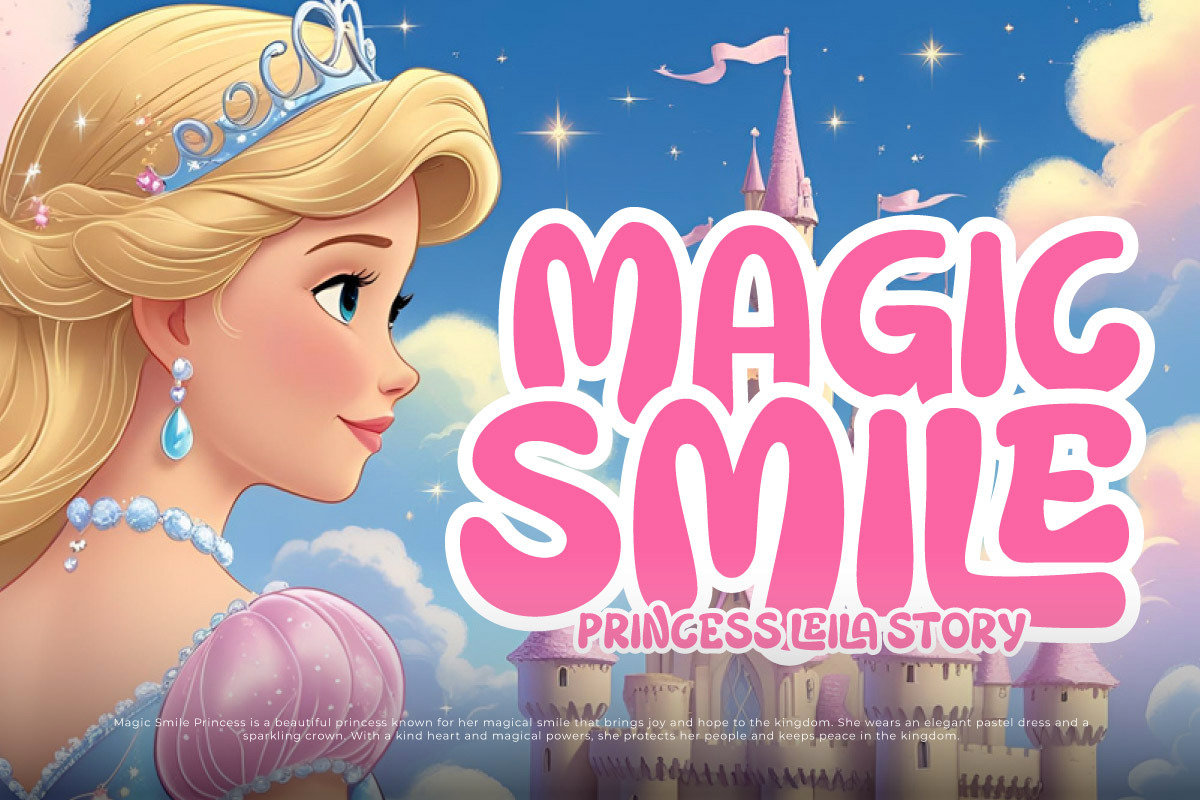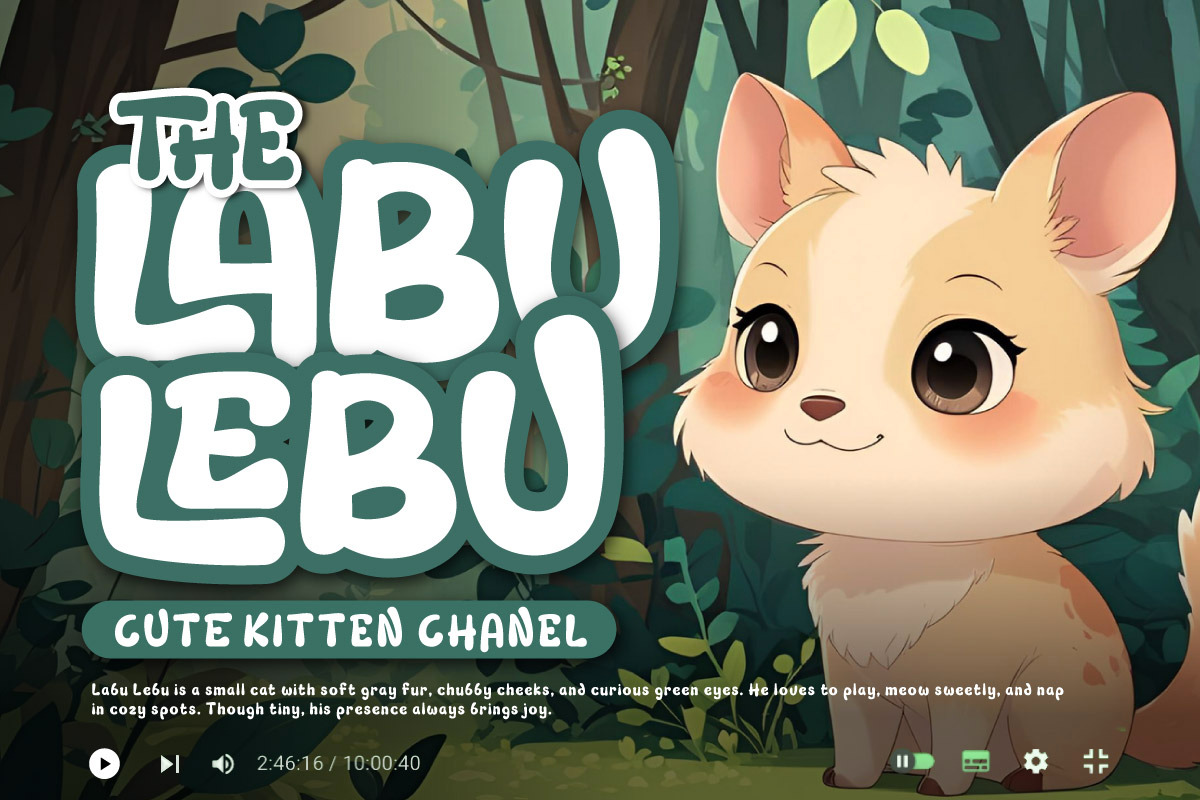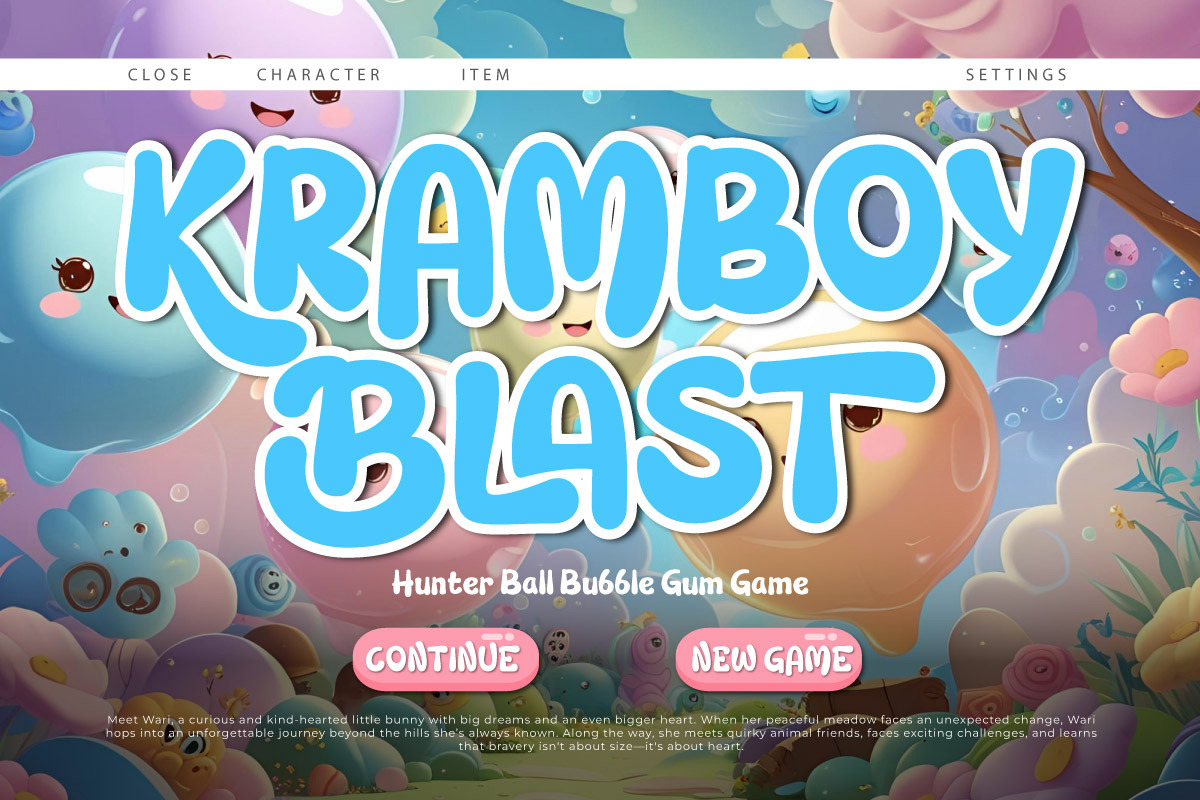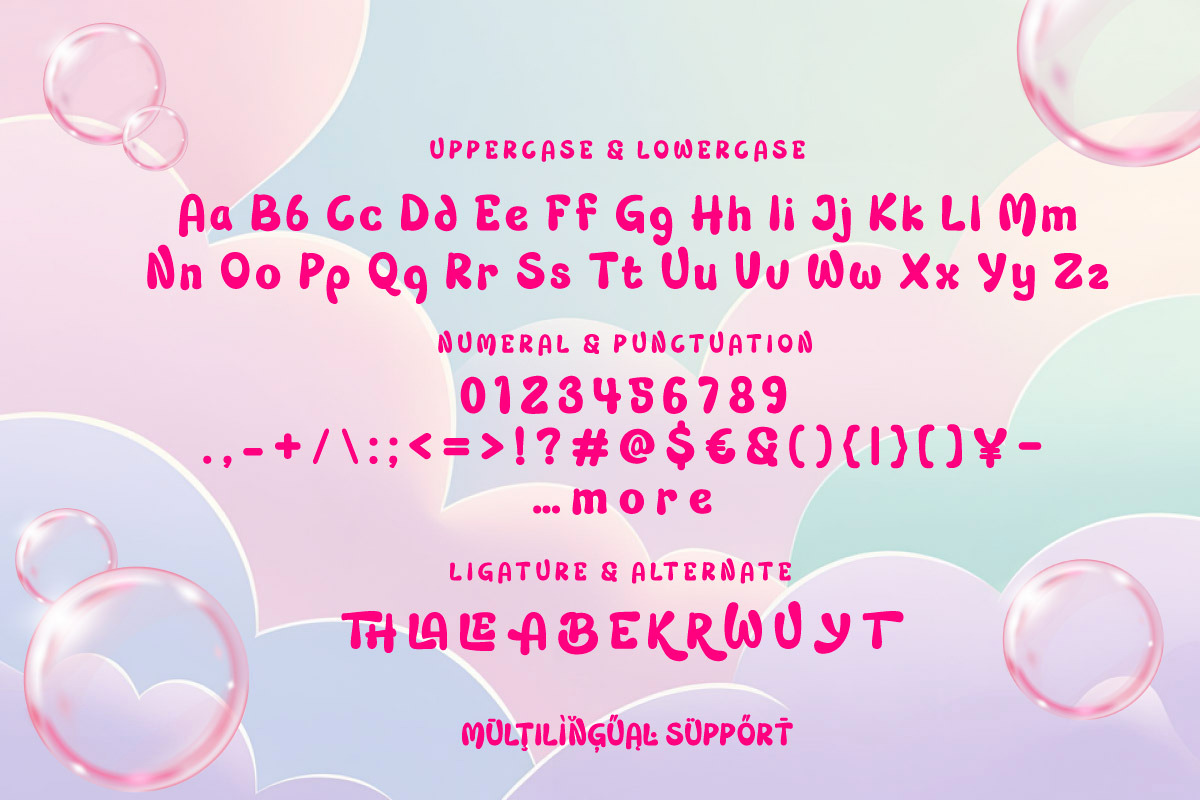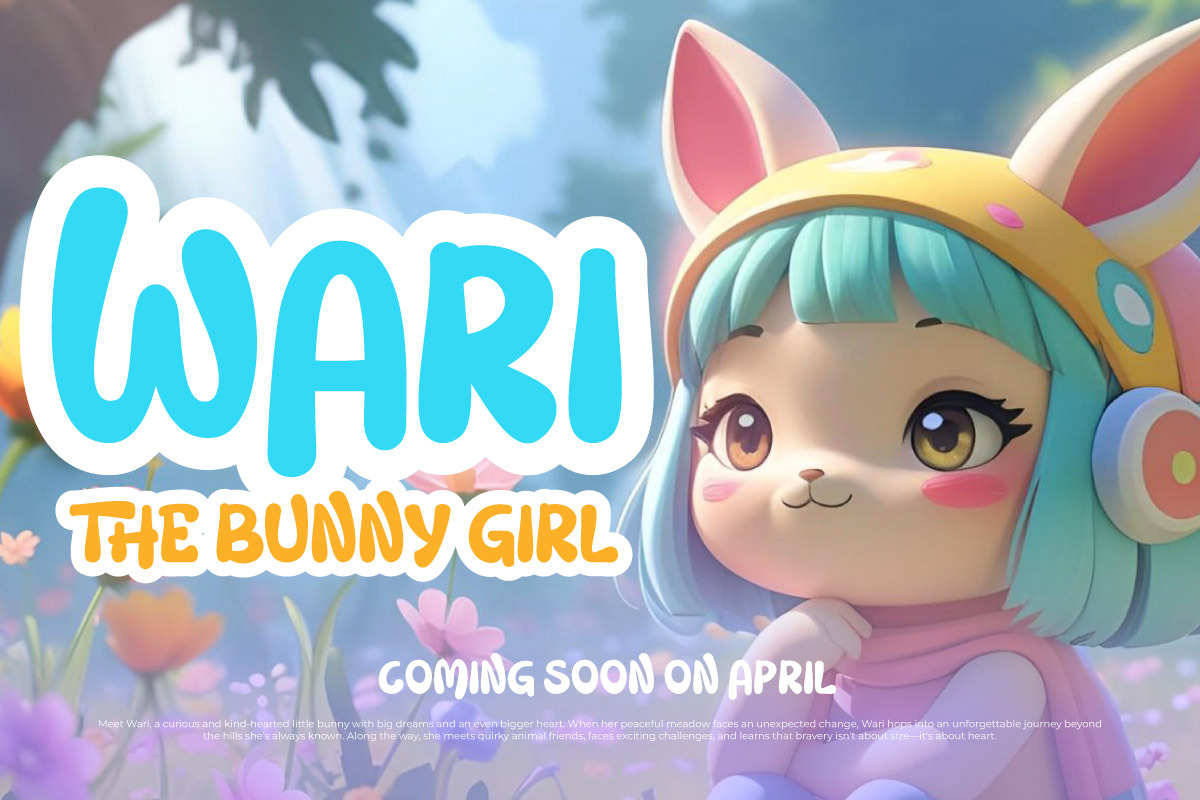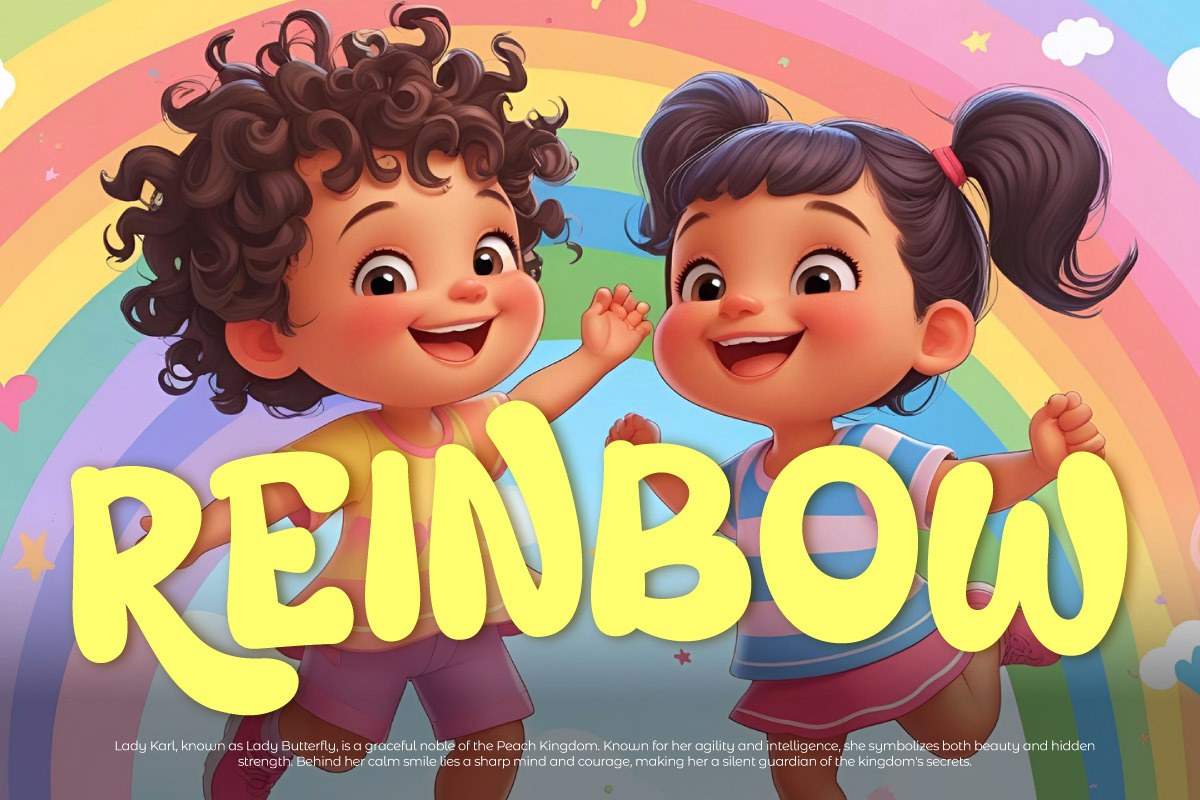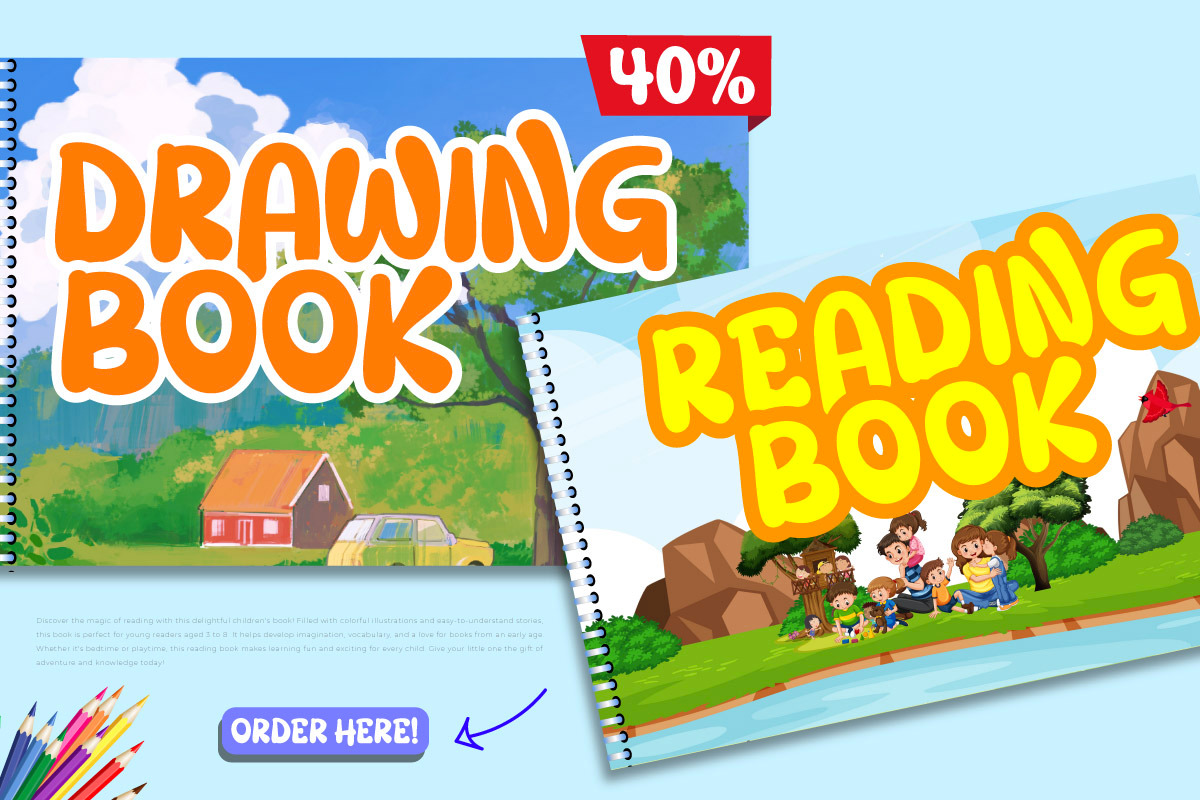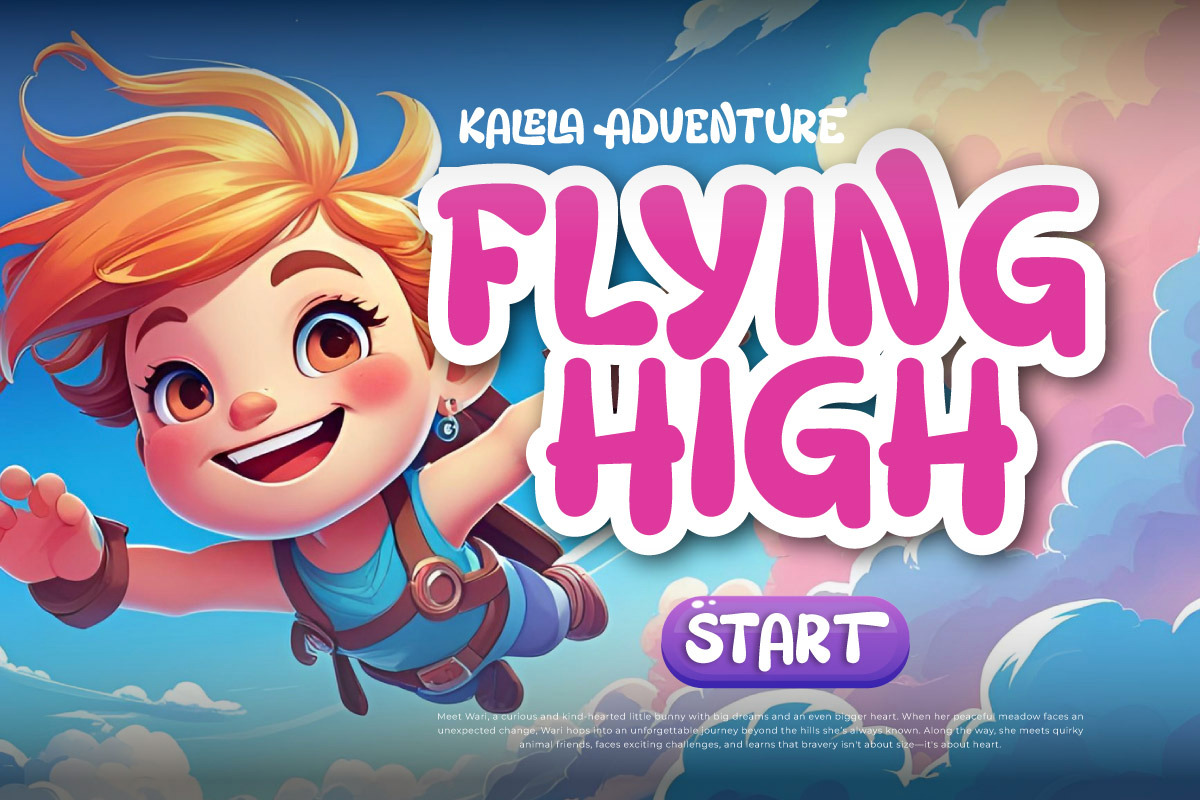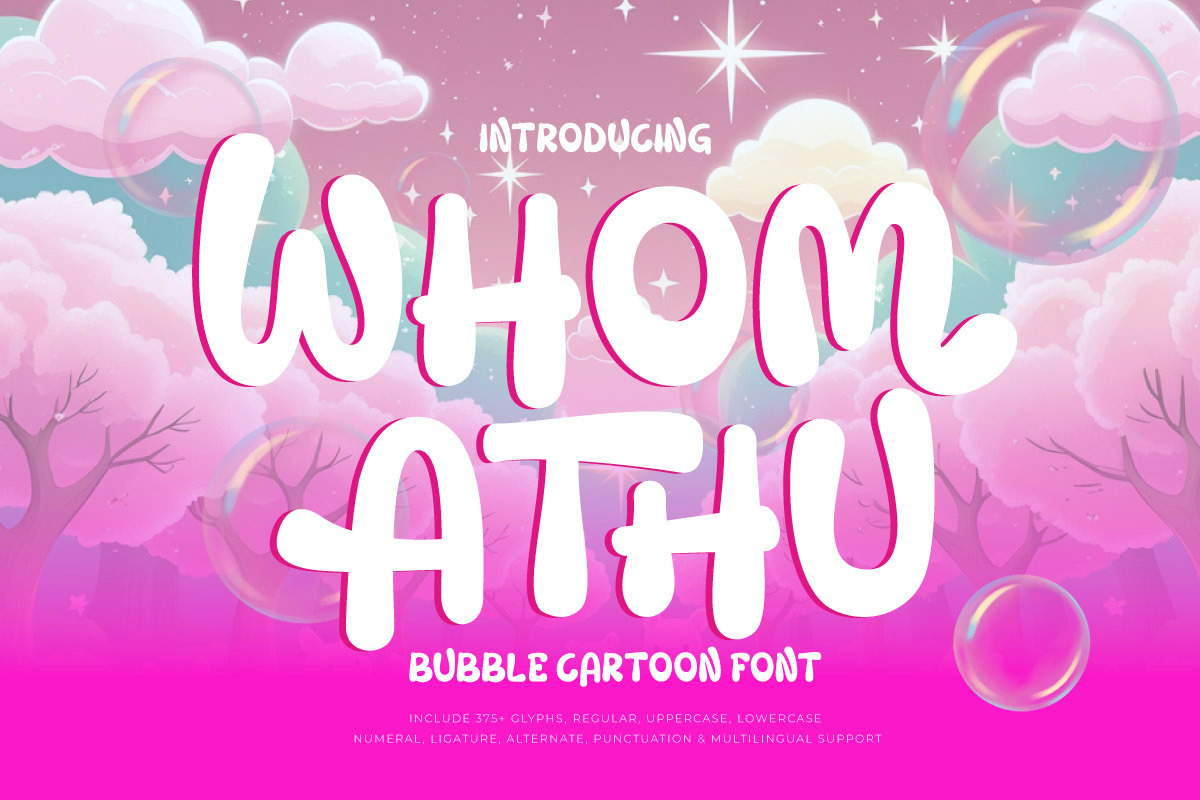
Whom Athu - Bubble Cartoon Font
Step into a world of fun and imagination with Whom Athu, a bubbly cartoon display font that radiates joy and friendliness. Designed with soft, rounded edges and a playful bubble style, Whom Athu brings a cheerful, approachable vibe to every project. It’s perfect for children’s storybooks, comic titles, toy packaging, birthday invitations, and any design that needs a spark of youthful energy.
Whom Athu combines boldness and cuteness, making your text stand out while remaining easy to read. Whether you're working on school materials, game titles, or social media graphics, this font instantly grabs attention and leaves a memorable impression. Let Whom Athu brighten your creative work with its unique, joyful character.